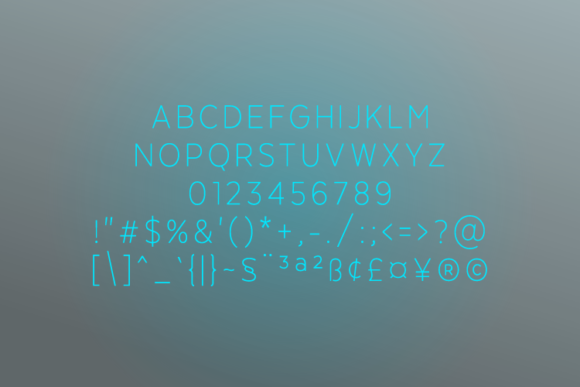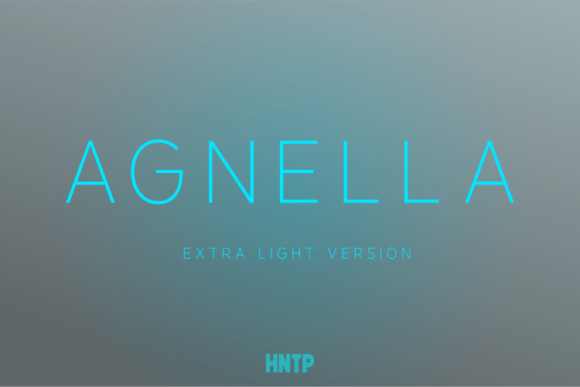
The Designer’s Delight: Uncovering the Charm of Agnella Extra Light Font
I’ll never forget the time I was working on a project for a client who wanted a clean, elegant look for their branding. I had spent hours scouring the internet for the perfect font, but nothing seemed quite right. That was until I stumbled upon Agnella Extra Light Font. Its subtle elegance and strong, steady appearance won me over, and I knew I had found the one. In this article, I’ll share my experience with Agnella, its features, and how to make the most of it in your designs.
A Personal Review of Agnella Extra Light Font
- ✨ Subtle elegance: Agnella’s sleek design and subtle curves make it perfect for projects that require a touch of sophistication.
- ✅ Strong and steady: The font’s vertically and horizontally cut stems give it a sturdy appearance, making it suitable for a wide range of applications.
- 🌈 Versatility: Agnella’s sans-serif design makes it easy to pair with other fonts, and its light weight ensures it won’t overpower your content.
While Agnella is an excellent font, there are a few things to keep in mind:
- 🤔 Limited contrast: Agnella’s subtle design can make it difficult to distinguish between different font sizes or styles.
- ⚠️ Not ideal for body text: While Agnella is perfect for headings and titles, it may not be the best choice for body text due to its light weight.
The Story Behind Agnella Extra Light Font
Agnella was designed by a team of typographers who wanted to create a font that combined elegance with strength. Inspired by classic sans-serif fonts, they crafted Agnella to be a versatile and reliable choice for designers. While the exact story behind Agnella may be unknown, its design reflects a deep understanding of typography and a passion for creating beautiful, functional fonts.
| Font Name | Agnella Extra Light Font |
| Author | Huntype |
| What is Agnella Extra Light Font best suited for? | Agnella Extra Light Font is best suited for projects that require a clean, elegant look, such as headings, titles, and branding materials. |
| Can I use Agnella for body text? | While Agnella can be used for body text, it may not be the best choice due to its light weight. Consider using a font with more contrast for body text. |